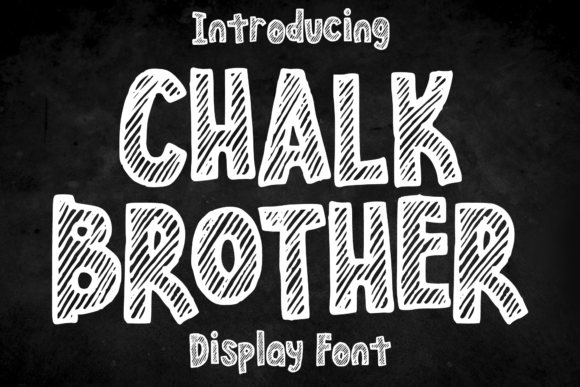
The Ultimate Chalkboard Charm: Unlocking the Magic of Chalk Brother Font
Who hasn’t scribbled on a chalkboard at some point in their lives, watching as their careless scribbles transformed into a work of art? For designers, that nostalgic feeling is about to get a whole lot better with the Chalk Brother Font. This playful, versatile font is the perfect tool for adding a dash of whimsy to any design project.
Whether you’re creating eye-catching t-shirts, designing a menu for your favorite restaurant, or crafting a blog post that needs a casual touch, Chalk Brother Font is the perfect companion. Its incredibly cool style makes it a valuable asset for designers looking to add a little extra flair to their work. With the Chalk Brother Font, the possibilities are endless – and we can’t wait to see what you create!
Key Features of Chalk Brother Font
- Font Family: Chalk Brother
- Unique Characteristics: Hand-drawn, distressed, and textured design, giving it a unique, vintage look
Chalk Brother Font Review
At first glance, the Chalk Brother font is quite the eye-catcher. Its bold and playful personality is perfect for projects that require a touch of whimsy. ✨ I love how it immediately grabs your attention and demands to be noticed.
Some of the things that work well with this font include:
- Its versatility in both digital and print applications.
- The many unique letterforms that add a fun touch to text.
- The font’s wide range of font sizes and styles.
- The numerous ligatures and alternates that make it feel more organic and handwritten.
- The font can be quite challenging to read in smaller sizes.
- The weight of the font can be a bit inconsistent, making it harder to balance text and background elements.
- The font’s personality can be a bit overwhelming, making it harder to use in more serious or formal projects.
Overall, I’d say the Chalk Brother font is a great choice for projects that require a bold and playful touch. Just be sure to use it thoughtfully and balance it with other design elements to avoid overwhelming the user’s senses.
Chalk Brother Font Practical Application Guide
The Chalk Brother Font is ideal for creating a playful, casual atmosphere in your designs. Use it for headings, titles, or body text in educational materials, advertisements, or social media posts. To get the most out of the font, experiment with different font sizes, colors, and styles to create a unique look.
Alternatives to Chalk Brother Font
Great Vibes Font is a modern, cursive script font that conveys a sense of elegance and sophistication. It is ideal for use in wedding invitations, greeting cards, and other formal events where a touch of whimsy is desired.
Great Vibes Font compares to Chalk Brother Font in that it also has a handwritten feel, but it is more refined and polished. While Chalk Brother Font has a more rustic, distressed look, Great Vibes Font is sleeker and more refined.
Alex Brush Font is a beautiful, hand-painted script font that adds a touch of warmth and personality to any design. It is suitable for use in logos, branding, and packaging where a unique and memorable look is desired.
Alex Brush Font is similar to Chalk Brother Font in that it also has a handwritten feel, but it is more elegant and refined. While Chalk Brother Font has a more casual, relaxed look, Alex Brush Font is more sophisticated and polished.
Dancing Script Font is a playful, cursive script font that is perfect for use in titles, headings, and other design elements where a sense of movement and energy is desired.
Dancing Script Font compares to Chalk Brother Font in that it also has a lively, dynamic feel, but it is more exaggerated and dramatic. While Chalk Brother Font has a more subtle, understated look, Dancing Script Font is more attention-grabbing and eye-catching.
Carolyna Pro Font is a beautiful, elegant script font that is ideal for use in luxury branding, packaging, and advertising where a sense of